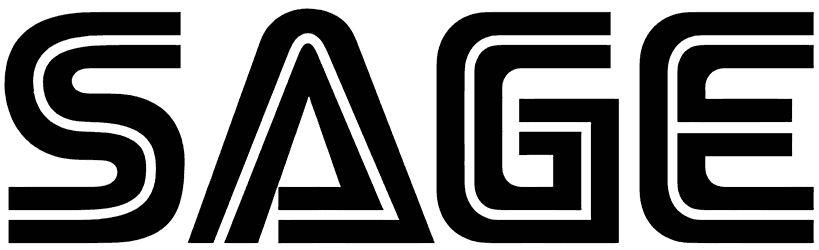
Sage Font
Enjoy maximum visual contrast in your typography by replacing your words with the bold letters of Sage. Its default design as an inline font will pave the way for attracting everyone’s attention, so you’re going to be delighted with the output.
Maybe it would have been better if the lowercase letters were also available but Sage makes do either way. Add this all-caps font to your bar signs, car posters, gym logos, and other modern designs and spice things up.